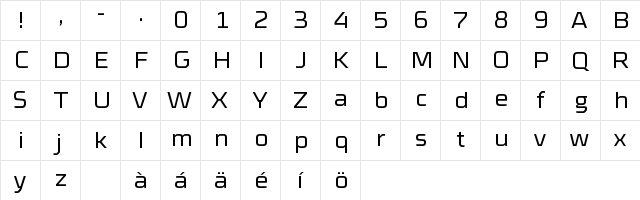
Cube Light
| Foundry | Jan Maack |
| Designer | Jan Maack |
Design Context for Cube Typeface
Cube takes a measured approach to typography — its balanced proportions and neutral character make it a reliable workhorse for both digital and print work. Its slender proportions lend an understated elegance to any composition.